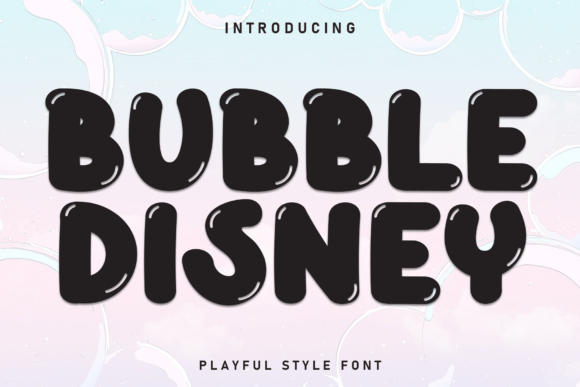
Bubble Disney Font: A Perfect Blend of Simplicity and Friendliness
In the world of typography, fonts play a crucial role in conveying the tone and personality of a brand or design. Among the numerous fonts available, the Bubble Disney Font stands out for its unique blend of simplicity, friendliness, and modernity. This article will delve into the features, benefits, and uses of the Bubble Disney Font, exploring how it can elevate your designs and make them more engaging.
What is Bubble Disney Font?
Bubble Disney Font is a casual and neat display font that combines the best of modern handwritten typography with a polished finish. Its clean lines, balanced letterforms, and subtle rounded edges make it an ideal choice for designs that require a friendly and approachable vibe.
The font’s simplicity is one of its standout features. Unlike elaborate or ornate fonts, Bubble Disney Font is easy to read and understand, making it perfect for a wide range of applications, from branding and headlines to packaging and digital content.
Key Features of Bubble Disney Font
- Clean Lines: The font features clean lines that give it a crisp and modern look.
- Balanced Letterforms: The letterforms are balanced, ensuring that the font is easy to read and visually appealing.
- Subtle Rounded Edges: The subtle rounded edges add a touch of friendliness and approachability to the font.
- Polished Finish: The font has a polished finish that gives it a professional and modern look.
Benefits of Using Bubble Disney Font
The Bubble Disney Font offers several benefits that make it an excellent choice for designers and brands. Some of the key benefits include:
- Versatility: The font is versatile and can be used in a wide range of applications, from branding and headlines to packaging and digital content.
- Readability: The font is easy to read, making it perfect for designs that require clear communication.
- Friendliness: The font’s friendly and approachable vibe makes it ideal for brands that want to convey a sense of warmth and approachability.
- Modernity: The font’s modern look and feel make it perfect for brands that want to appear contemporary and trendy.
Uses of Bubble Disney Font
The Bubble Disney Font is a versatile font that can be used in a wide range of applications. Some of the most popular uses of the font include:
- Branding: The font is perfect for branding, as it can help create a friendly and approachable image for a brand.
- Headlines: The font is ideal for headlines, as it can add a touch of modernity and sophistication to a design.
- Packaging: The font can be used in packaging designs to add a warm and inviting touch.
- Digital Content: The font is perfect for digital content, such as blog posts, social media graphics, and website headers.
How to Use Bubble Disney Font Effectively
To get the most out of the Bubble Disney Font, here are some tips for using it effectively:
- Use it for Headlines: The font is perfect for headlines, as it can add a touch of modernity and sophistication to a design.
- Pair it with Other Fonts: The font can be paired with other fonts to create a unique and visually appealing design.
- Use it for Branding: The font is perfect for branding, as it can help create a friendly and approachable image for a brand.
- Experiment with Colors: The font can be used with a wide range of colors, so experiment with different colors to find the one that works best for your design.
In conclusion, the Bubble Disney Font is a versatile and modern font that can add a warm and inviting touch to any design. Its clean lines, balanced letterforms, and subtle rounded edges make it perfect for a wide range of applications, from branding and headlines to packaging and digital content.
Whether you’re a designer or a brand looking for a font that can help you stand out, the Bubble Disney Font is an excellent choice. Its friendliness, readability, and modernity make it a font that can help you achieve your design goals.
- What is Bubble Disney Font? Bubble Disney Font is a casual and neat display font that combines simplicity with a friendly, approachable vibe.
- What are the key features of Bubble Disney Font? The font features clean lines, balanced letterforms, and subtle rounded edges.
- What are the benefits of using Bubble Disney Font? The font offers several benefits, including versatility, readability, friendliness, and modernity.
- How can I use Bubble Disney Font effectively? The font can be used effectively by using it for headlines, pairing it with other fonts, using it for branding, and experimenting with colors.